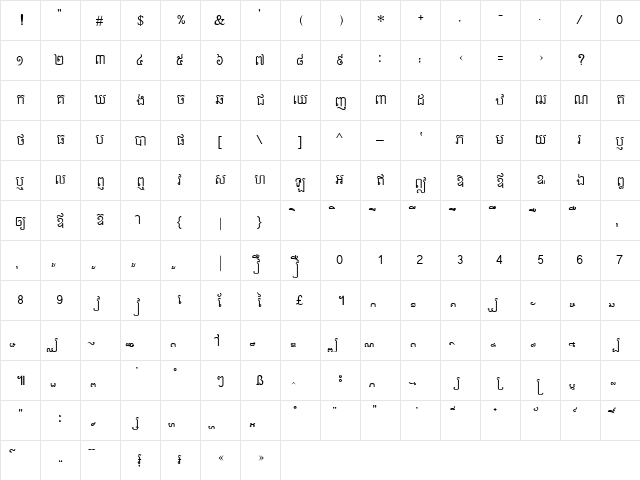
Khmer Mondulkiri K Regular
Design Context for Khmer Mondulkiri K Typeface
Khmer Mondulkiri K is a composed and adaptable typeface that performs quietly and consistently across a wide range of design contexts.